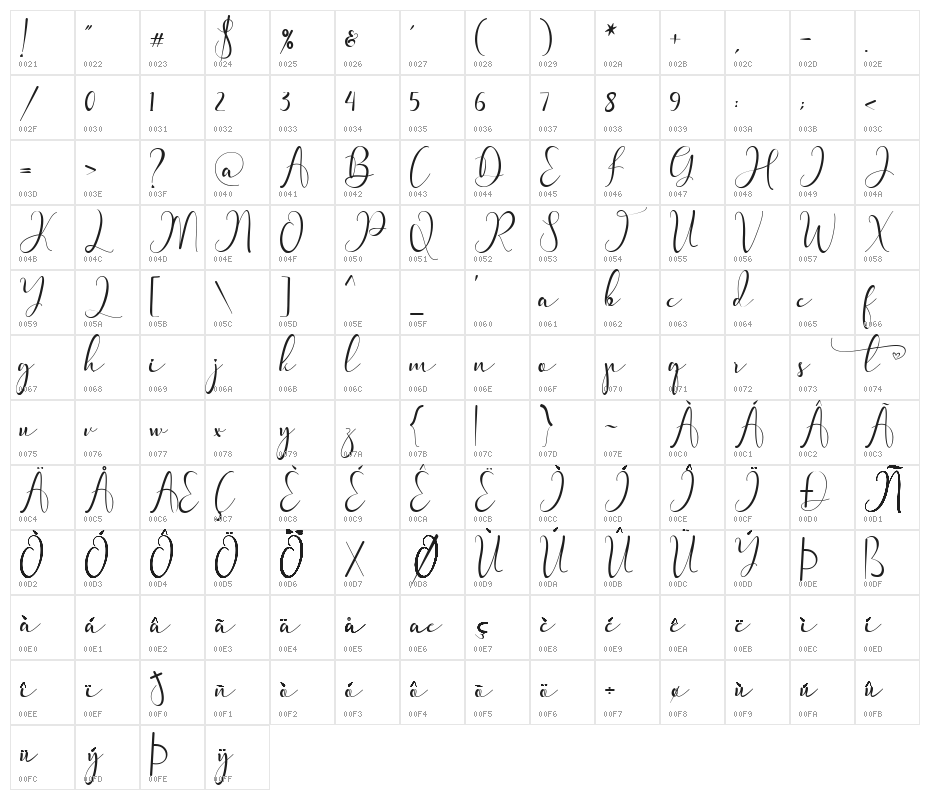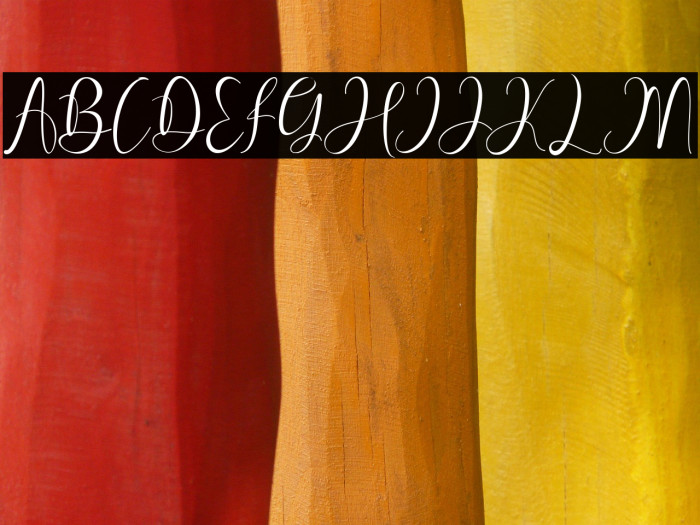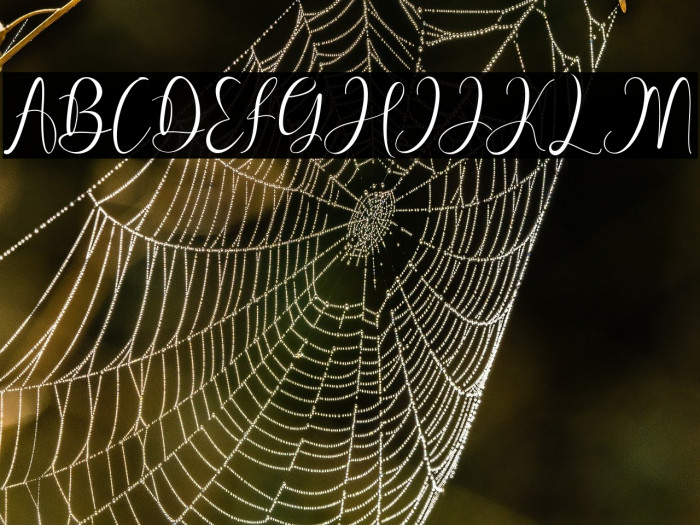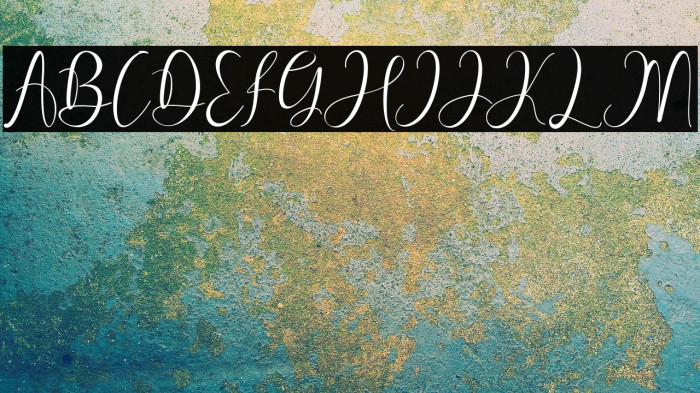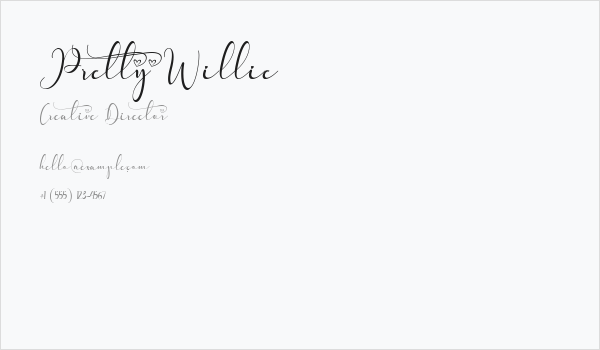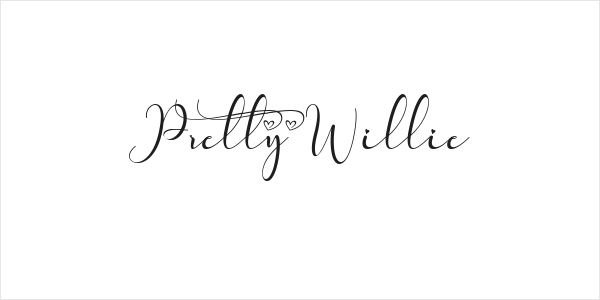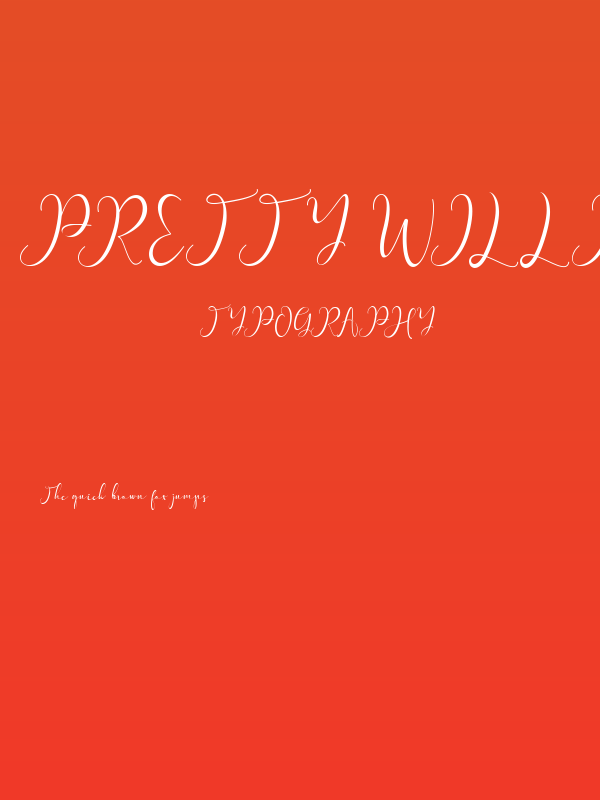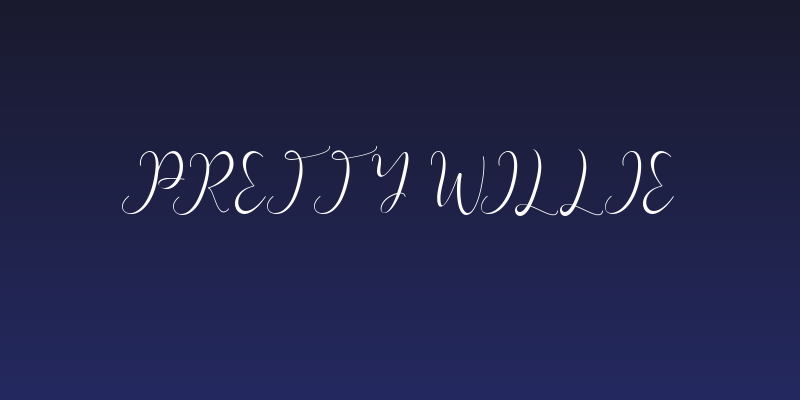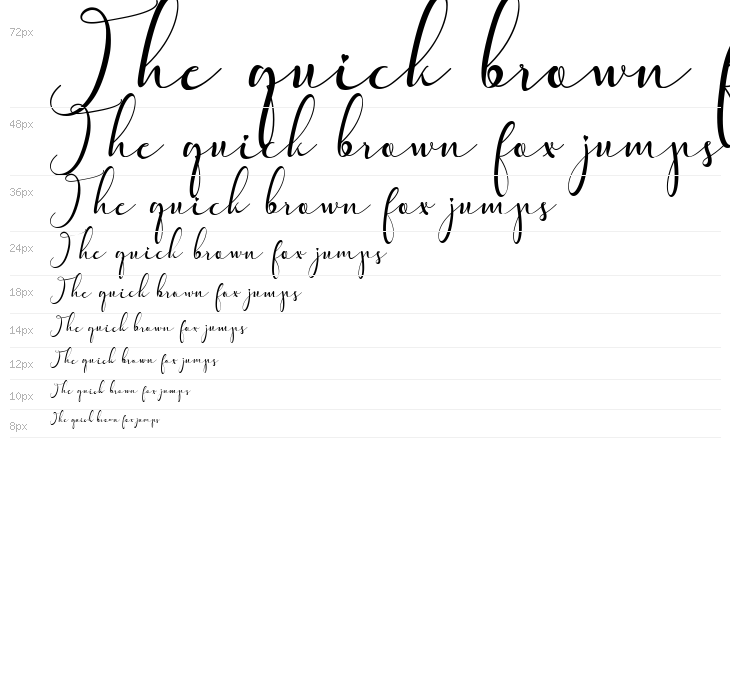
Pretty Willie Font
Pretty Willie Description
This elegant script font features flowing, interconnected letters with a graceful and sophisticated appearance. The uppercase letters are tall and slender, with delicate loops and swashes that add a touch of flair. The lowercase letters maintain a consistent flow, with some characters extending below the baseline, creating a dynamic and lively rhythm. The numerals are styled to match the cursive nature of the alphabet, while the special characters are thoughtfully designed to integrate seamlessly with the overall aesthetic. This font exudes a sense of refinement and is perfect for projects that require a touch of elegance.
Overall StyleElegant
Use CaseLogos, Invitations, Decorative text
Proposed ProjectsIdeal for wedding invitations, elegant branding, greeting cards, and upscale packaging.